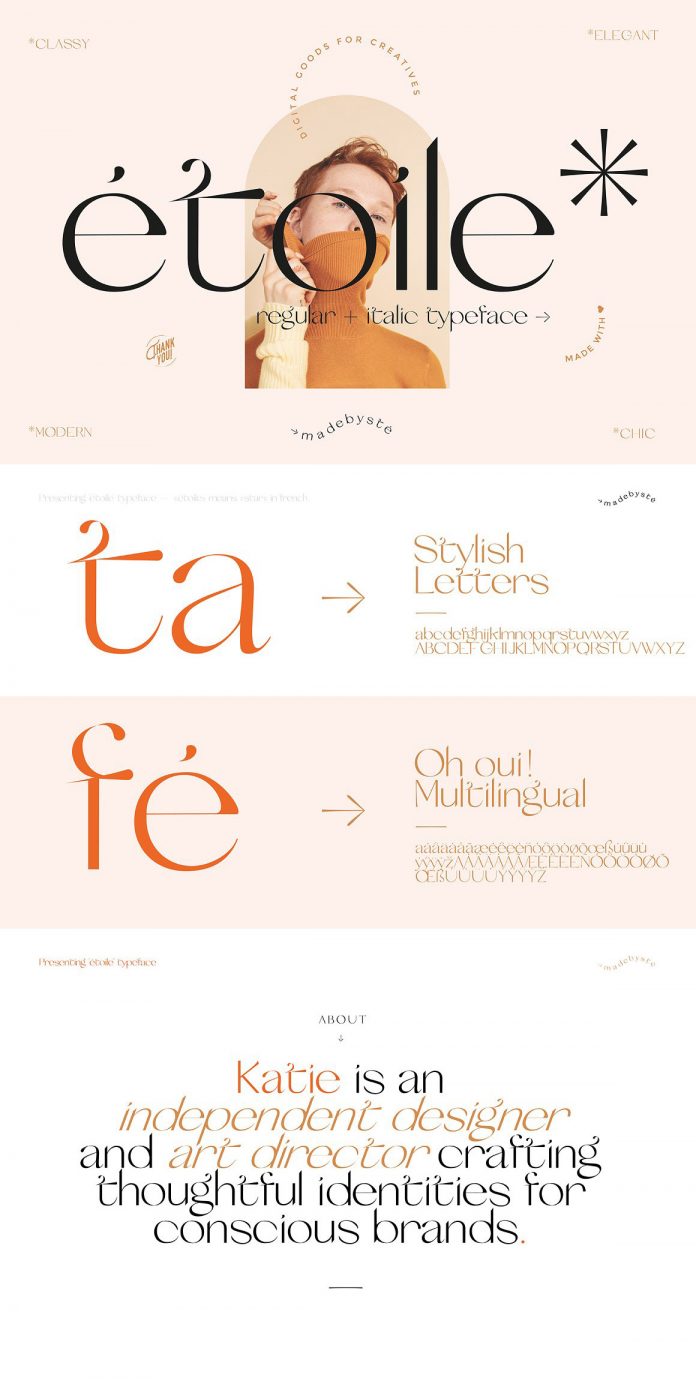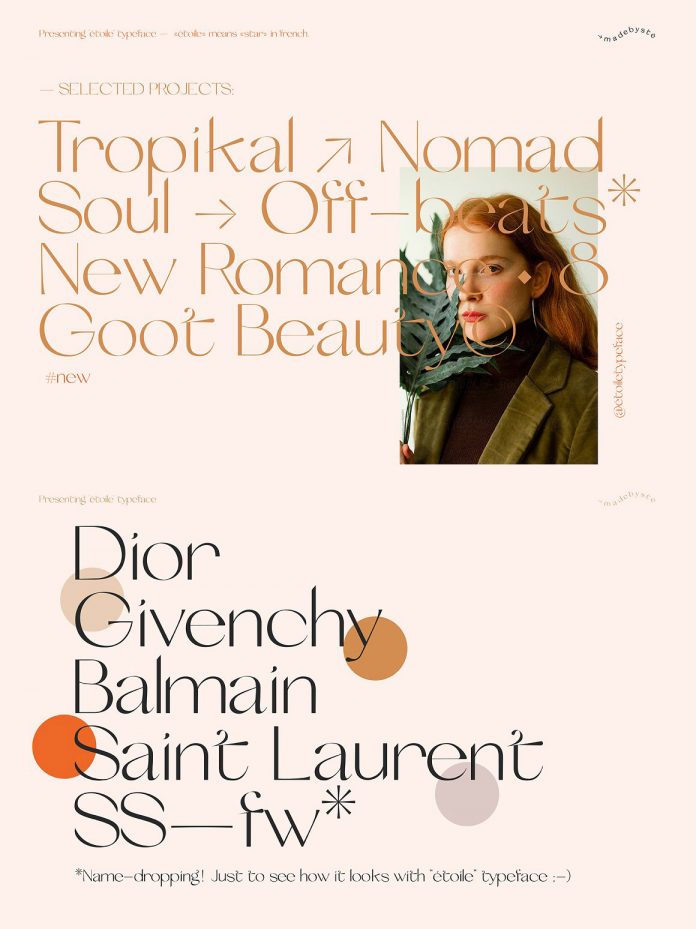
Etoile, a modern and elegant display font.
Designed by Swiss art director and type designer Stéphanie B. of Madebysté Studio, Etoile is a modern and elegant sans serif font with a unique appearance. Its distinctive style gives your text a classy yet modern look. It has been designed for use as a display font. Whether print or web, Etoile is a great choice for big titles and headlines. The elegant style of this typeface is well suited for fashion, creative branding, and editorial design.
The Etoile font comes with upper and lowercase letters as well as numbers and punctuation. Its character set supports multiple languages. For further information, just click on the following link or have a look at the images below.